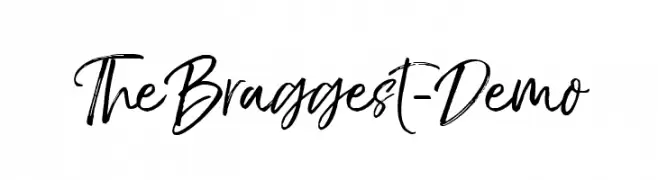
A dynamic and expressive handwritten font with fluid strokes and artistic flair.
A bold, expressive handwritten script with dynamic, angular strokes.
A bold, handwritten font with a playful and energetic style.
A bold, brush-style font with dynamic, hand-painted strokes.
A bold, geometric font with sharp angles and a modern, industrial style.
A bold, geometric font with strong, angular shapes for impactful design.
A decorative font with a mechanical, textured design using circles and lines.
A bold, dynamic font with sharp, angular strokes and a sense of energy.
A sophisticated, elegant handwritten font with fluid strokes.
A playful, hand-drawn font with a whimsical and friendly style.